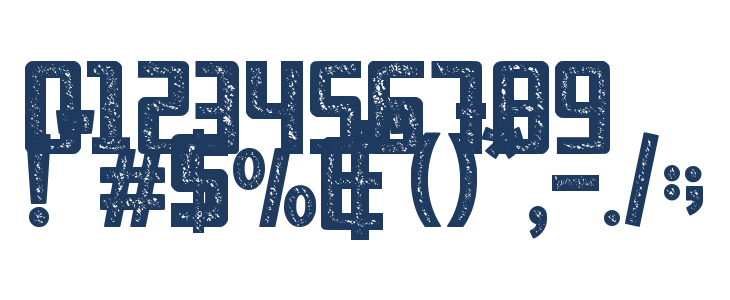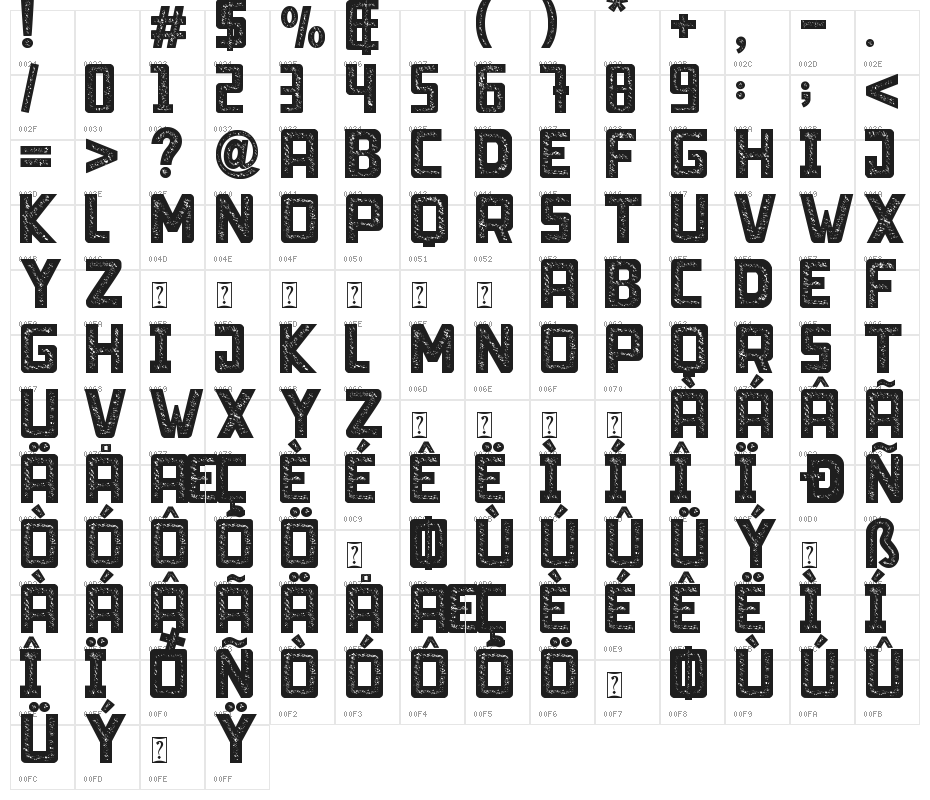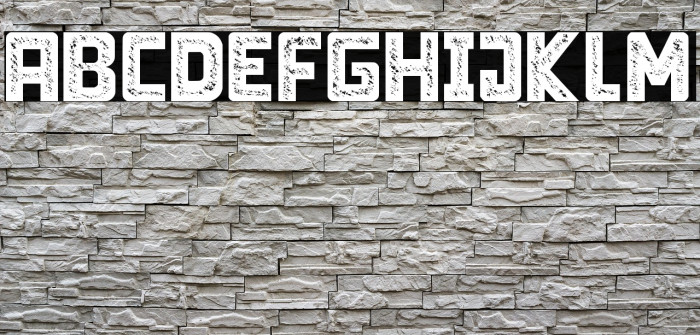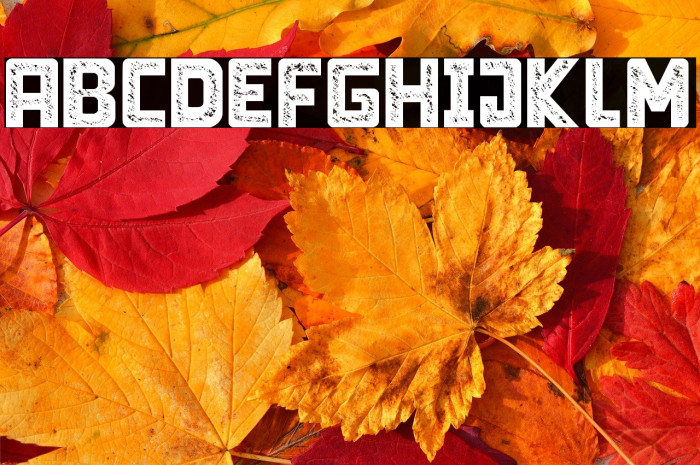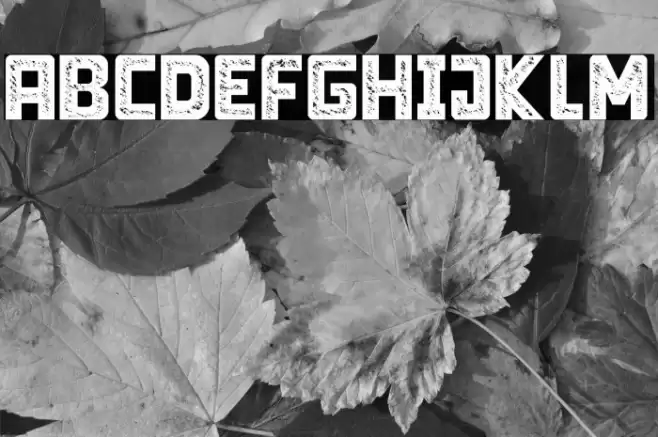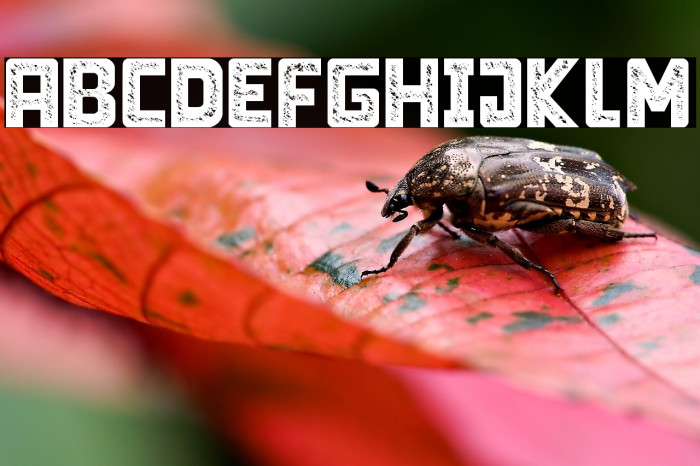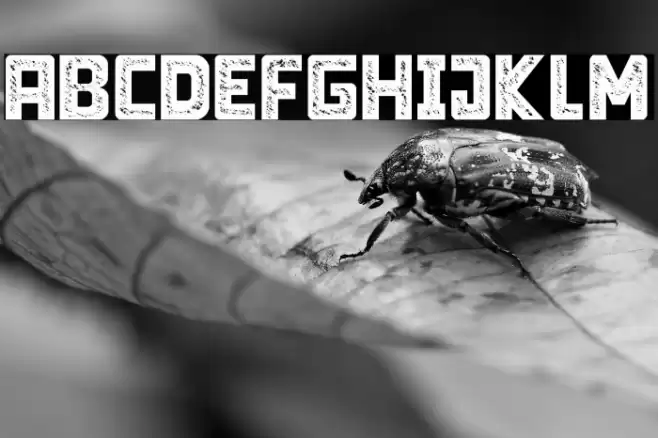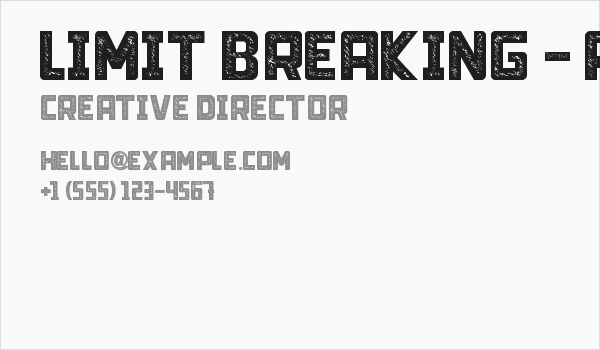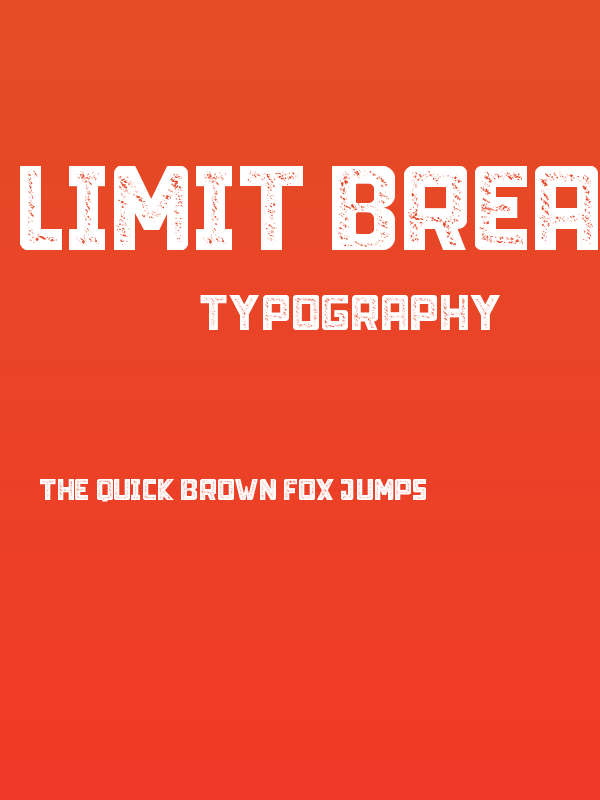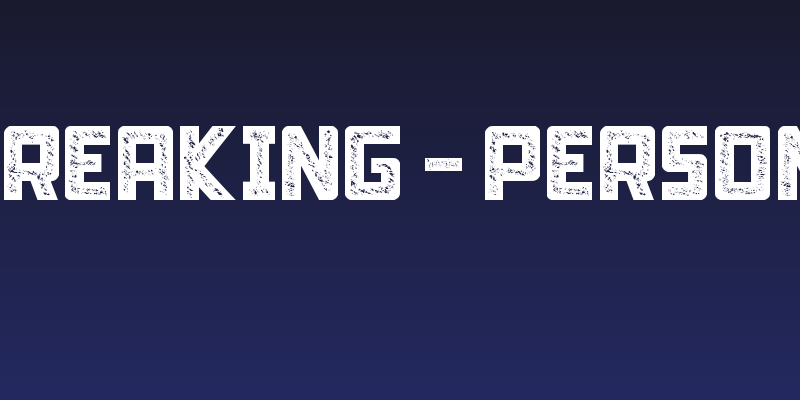
Limit Breaking - Personal use Font
Limit Breaking - Personal use Description
This font features a bold, distressed style that gives it a rugged and vintage appearance. The characters are blocky and robust, with a textured effect that mimics wear and tear, adding a sense of history and character. The uppercase and lowercase letters maintain a consistent width, while the numbers and special characters follow the same design ethos, ensuring uniformity across all glyphs. This font is ideal for projects that require a strong, impactful presence, such as posters, logos, or branding materials that aim to convey a sense of strength and durability.
| Proposed Projects | Ideal for posters, logos, branding materials, and any design needing a strong, vintage impact. |